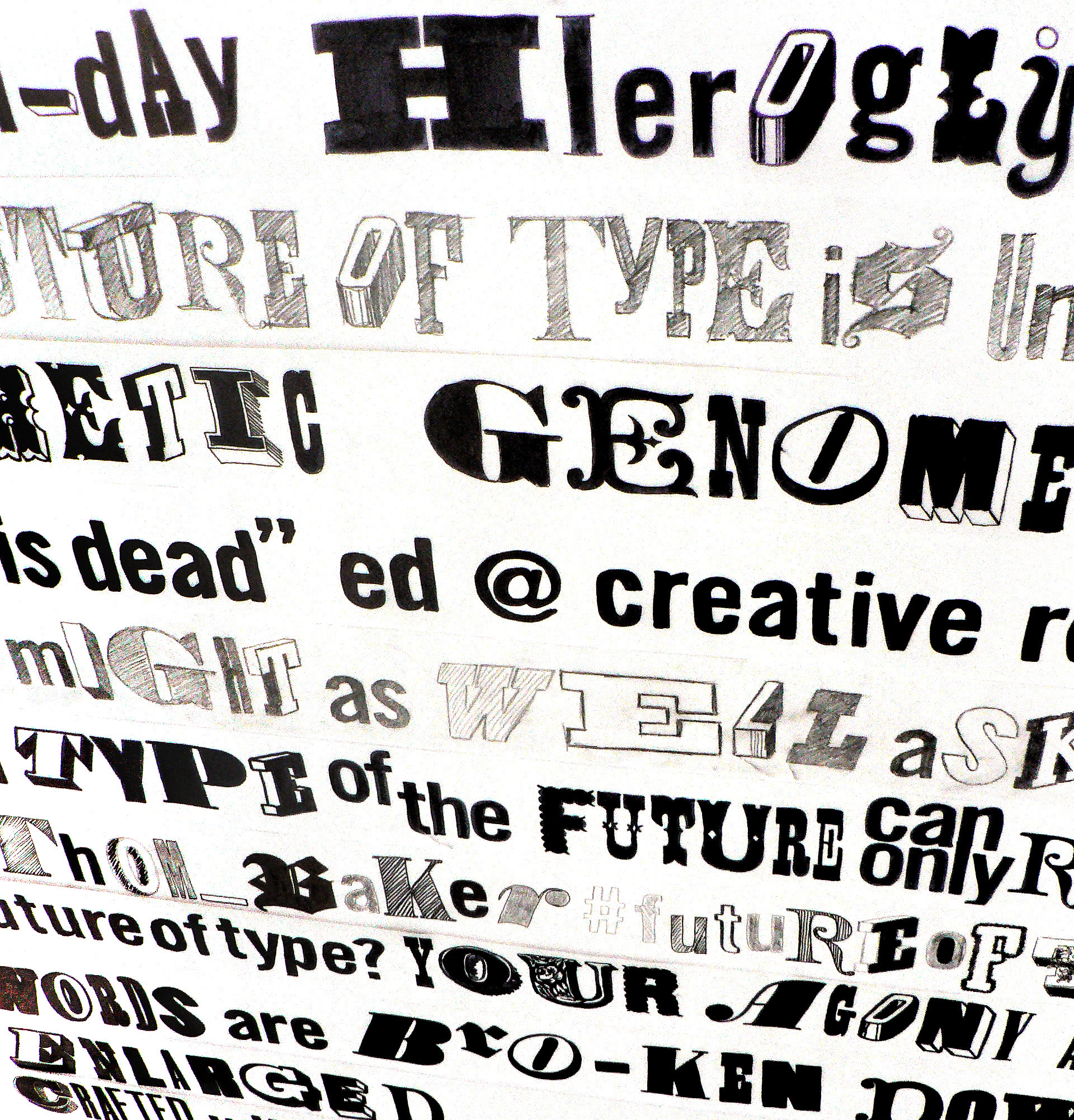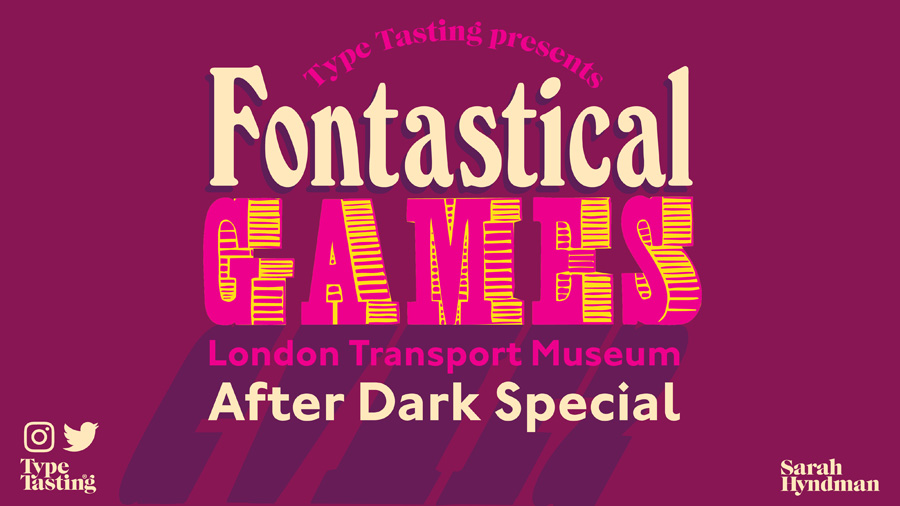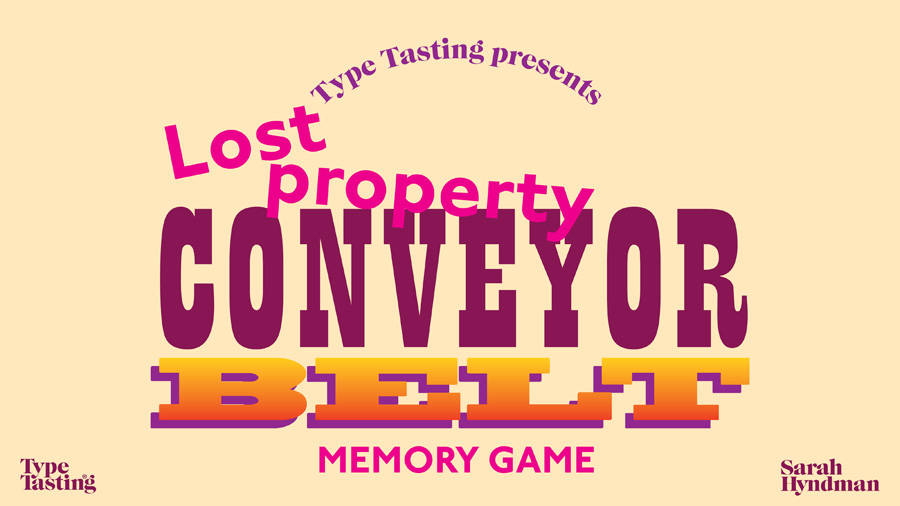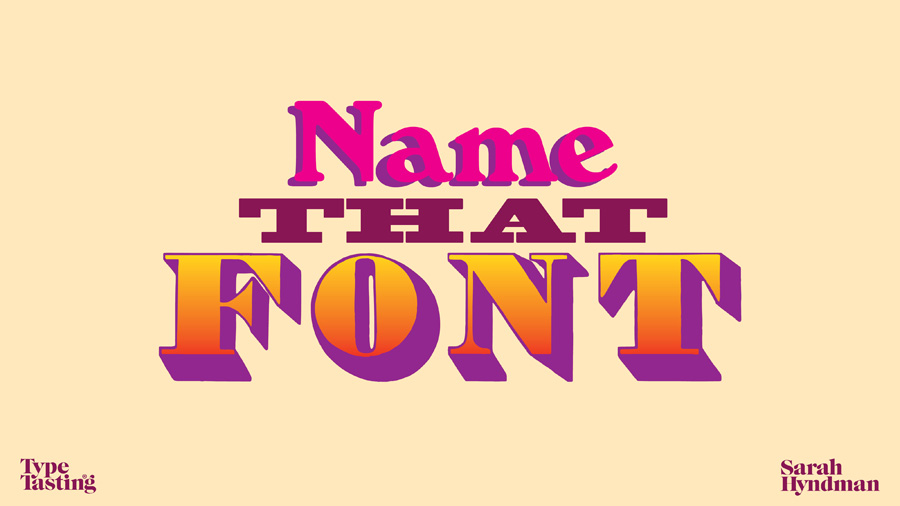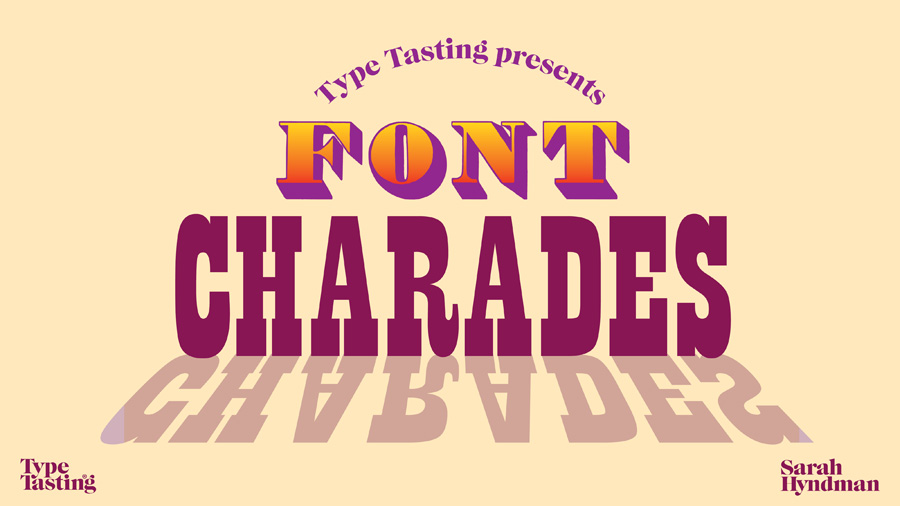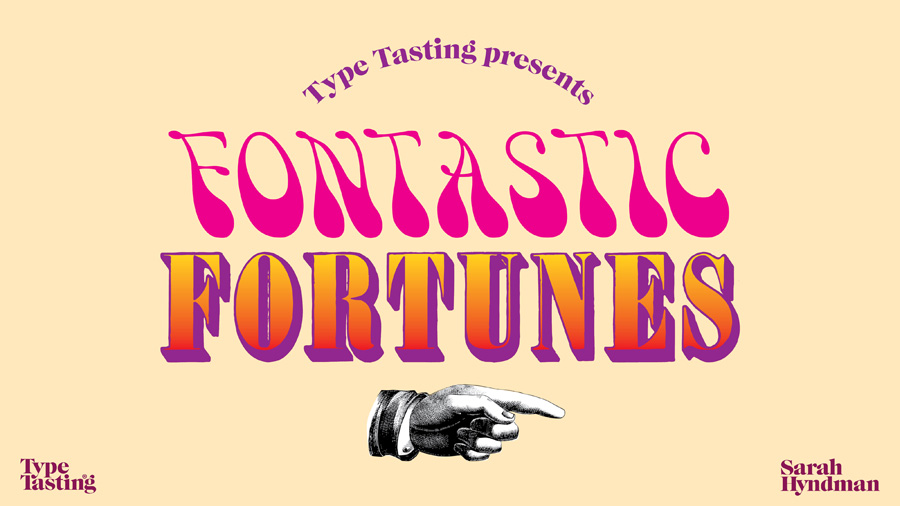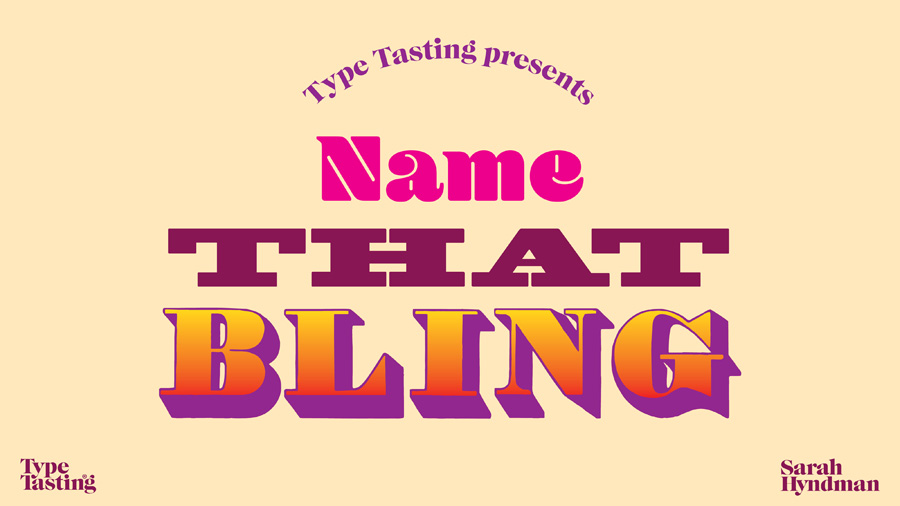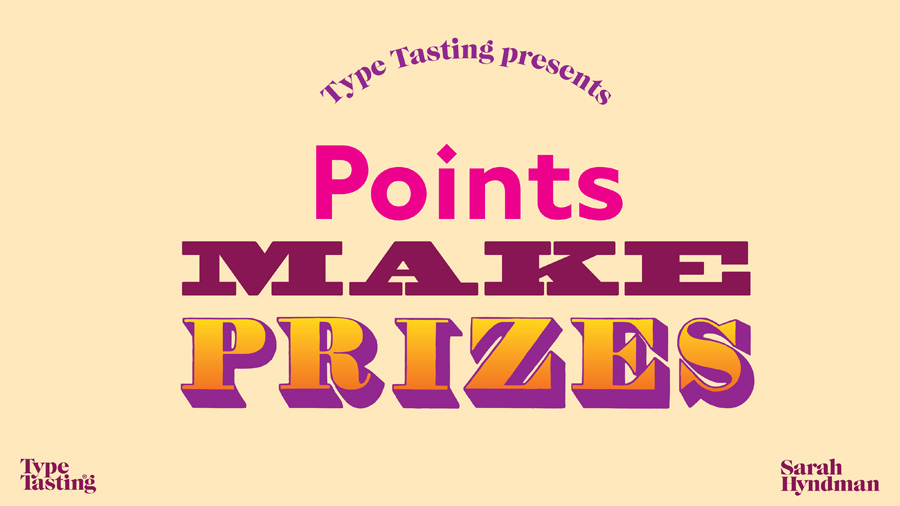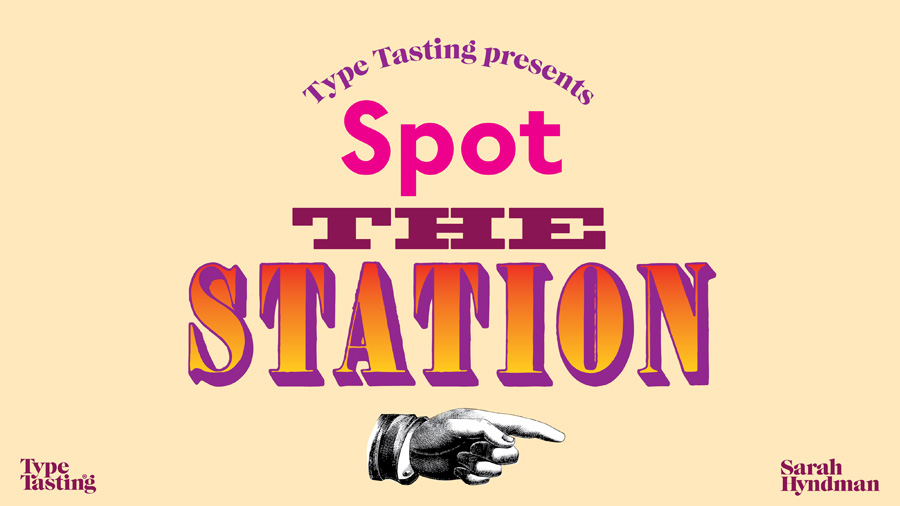
“Sublime & crazy tales”: a new immersive typography workshop
An immersive, interactive journey through how typography changed the world. There will be activities, tasters, smells, sounds, stories and surprises. These are unique experiences that change what you think, feel and do.
I really enjoyed opening the doors and chatting to so many people at our recent open studios. After two years spent online feeling like I was living a cross between The Truman Show and Max Headroom, it’s been so good to create and host in-person events again. One of my favourite reasons is that I get to create props, smells and tasters designed to surprise unsuspecting audiences.
I’ve spent today making props for an event I’m running at the HQ of the Future Strategy Club for their members next week. This is an immersive, interactive journey through how typography changed the world. There will be activities, tasters, smells, sounds, stories and surprises. We’ll time travel through a few hundred years of type history getting a first hand taste of protest movements, pampleteers, social shifts and revolutions.
This is based on an event I created for the London Design Festival, which attendees described as “An immersive experience of storytelling and discovery”, “Brilliant”, “Sublime & crazy tales from the past”, “Wonderful”, “A roaring success”.
Live at the London Transport Museum
I’m delighted that live, in-person events are happening again after a very long break. It’s wonderful to be in the same room as all of you with the collective energy, banter and all those random post-event conversations. I’ve especially missed those.
Recently I spoke at the incredibly inspiring TBD evening at Fora (you can see how happy I was to be there). Tonight I’ll be live at the London Transport Museum for a fun evening of Fontastical Games as part of their After Dark series. This will be part gameshow and part quiz. It’s heavily influenced by my love of 1970s gameshows full of laughter and things that will inevitably go wrong.
Roll up roll up for an evening of fonts, letters and signs. Can you guess the tube station from the font clues? Will you spot the real sign from the fake? Shout along with typography karaoke. Play along with font charades. And we’ll end with the classic lost property conveyor belt game.
Fantastical Fonts with Sarah Hyndman: online live events
Not-to-be-missed interactive, funny and fantastical live events. Sarah’s on a mission to make typography exciting for everybody by inviting you to take part in games and demonstrations so you can make the discoveries for yourself.
Come along to this fun and irreverent online event with author Sarah Hyndman. Join in with games from her bestselling book Why Fonts Matter. She’ll answer as many of your questions as possible, no questions are too silly or too strange!
Ideal for beginners, students and anybody curious about reading fonts. We’re all font consumers in our everyday lives. Sarah will show you that you’re already an expert, even if you don’t realise it.
WHO’S THAT FONT?
Do fonts have personalities? Which would you date, ditch or just be friends with? What does a font reveal about your personality?
DO FONTS SMELL?
What might different fonts smell like and what memories do they evoke? Can a font make your jellybean taste different? How do fonts interact with all your senses?
Bring a matching pair of jellybeans for an experiment.
Are you ready to immerse yourself in the fantastical world of fonts?
About your host
Sarah Hyndman demystifies the amazing world of typography. She is the author of Why Fonts Matter. She is a TEDx speaker, a regular on radio (BBC Radio 4’s Word of Mouth with Michael Rosen, Saturday Live, Today.) and TV (Channel 4’s Sunday Brunch). Sarah is a multisensory typography expert and collaborates on studies with Professor Charles Spence of the University of Oxford.
8 proven tips for creating brilliant online events
Since April 2020 I’ve created and hosted more than 50 online events and I’ve been joined by so many people from countries around the world. This has given me the opportunity to really find out what works and how to create a brilliant online event. Here are 8 proven tips you can use to transform your online event from average to “magnificent”*.
Blog: The future of type
Blog: The future of type
AN OVERVIEW OF THE THEMES…